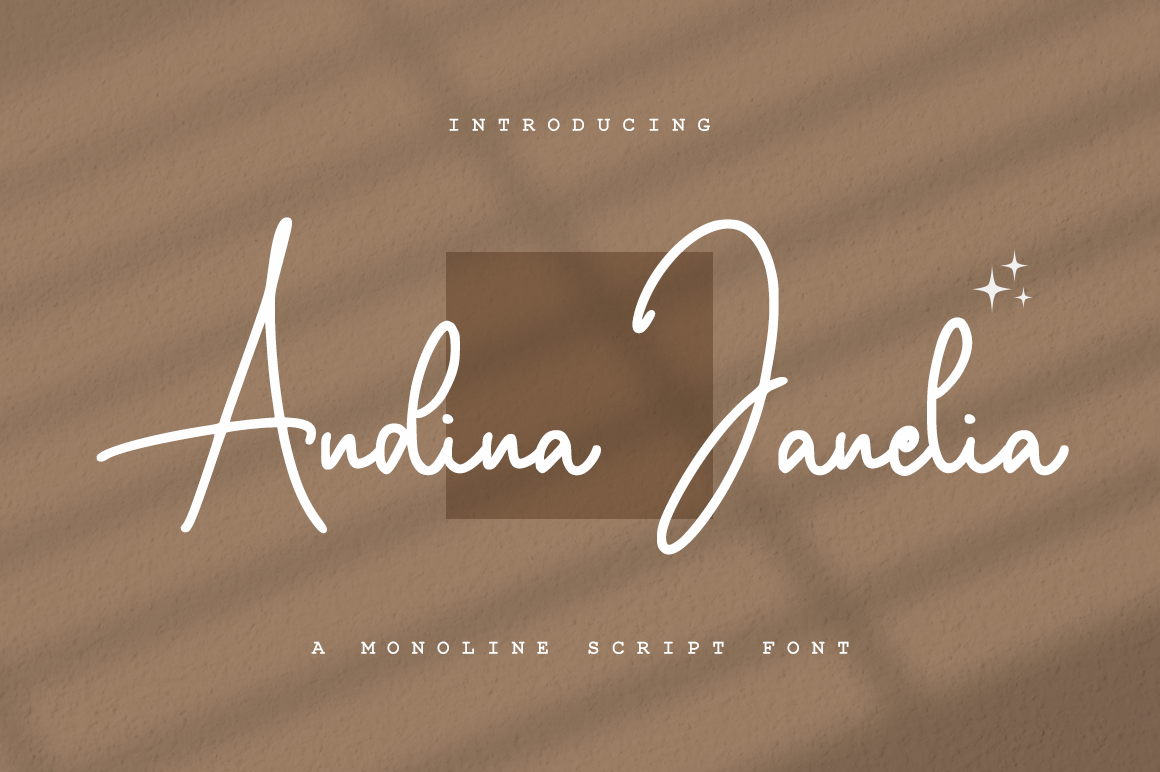
Andina Janelia - Signature Font
Andina Janelia is a modern signature font which is combining classic calligraphy with a modern style. Its dancing baseline will give your design an elegant and modern touch.